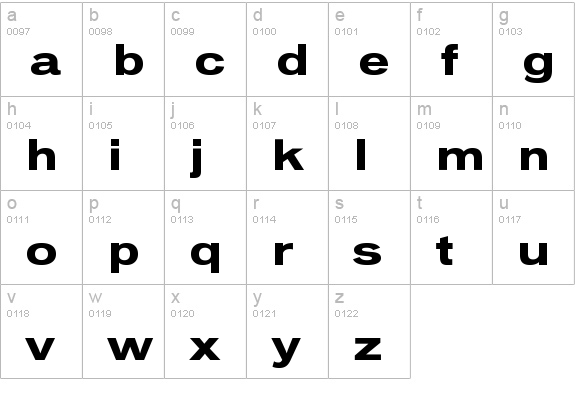
VonnesTTBoldExt Font Details
VonnesTTBoldExt font is a bold and expressive typeface that exudes confidence and power. Its strong and distinctive letterforms make it perfect for headlines, titles, and attention-grabbing designs. With its thick strokes and sharp angles, this font commands attention and demands to be noticed. But what sets VonnesTTBoldExt font apart from the rest is that it is not only visually striking, but also free. That's right, you can download this incredible font for absolutely no cost at FontsMarket.com. Whether you are a professional designer looking to add some flair to your projects or an individual who wants to make a statement with their personal creations, this font is an excellent choice. The versatility of VonnesTTBoldExt font is another reason why it is a must-have in your font collection. It works well in both print and digital mediums, making it suitable for a wide range of applications. From posters and brochures to websites and social media graphics, this font will make your designs stand out from the crowd. With its bold and commanding presence, VonnesTTBoldExt font is sure to leave a lasting impression on anyone who lays eyes on it. Its unique and eye-catching design will captivate your audience and convey your message with impact and style. So why wait? Don't miss out on the opportunity to enhance your designs with this amazing font. Visit FontsMarket.com today and download VonnesTTBoldExt font for free. Unleash your creativity and take your designs to the next level with this bold and powerful typeface.